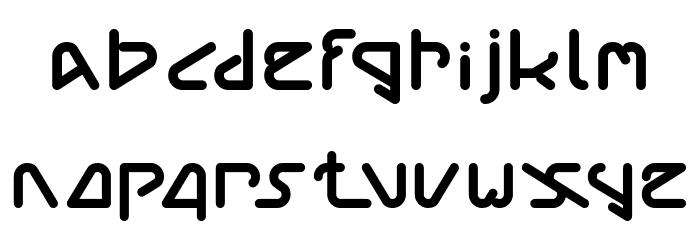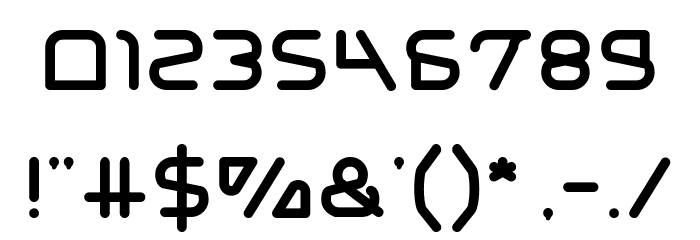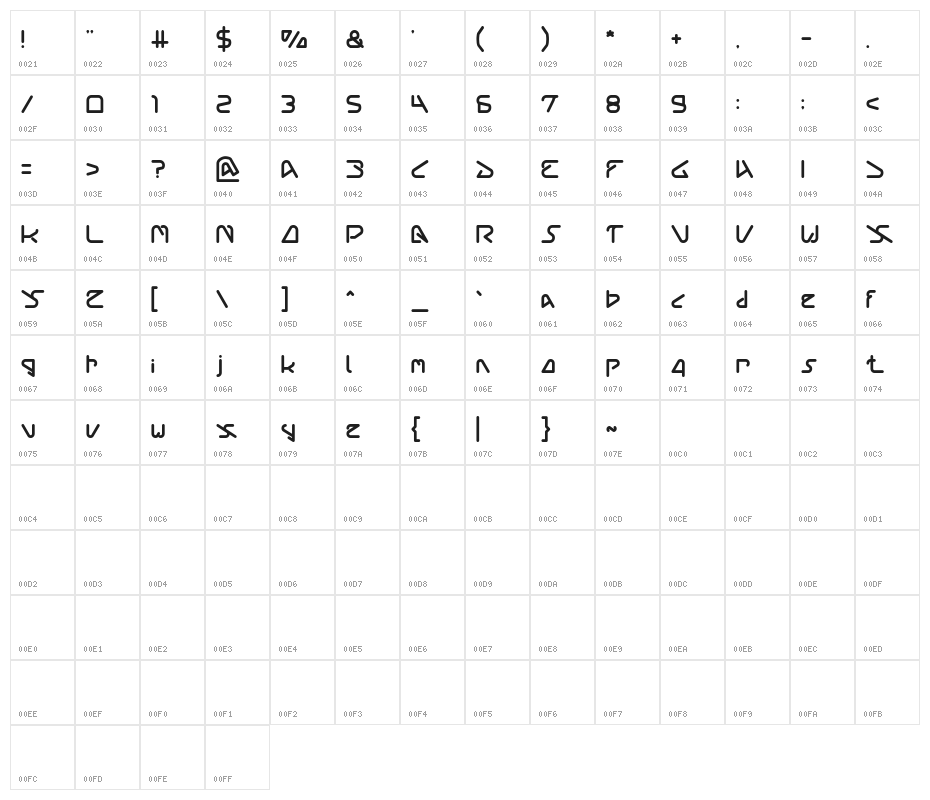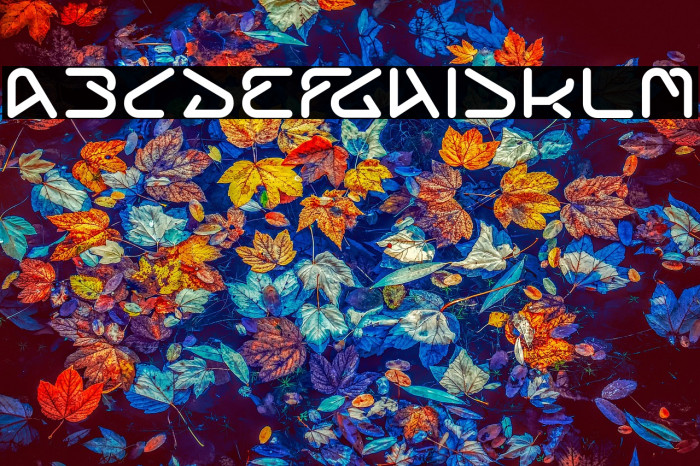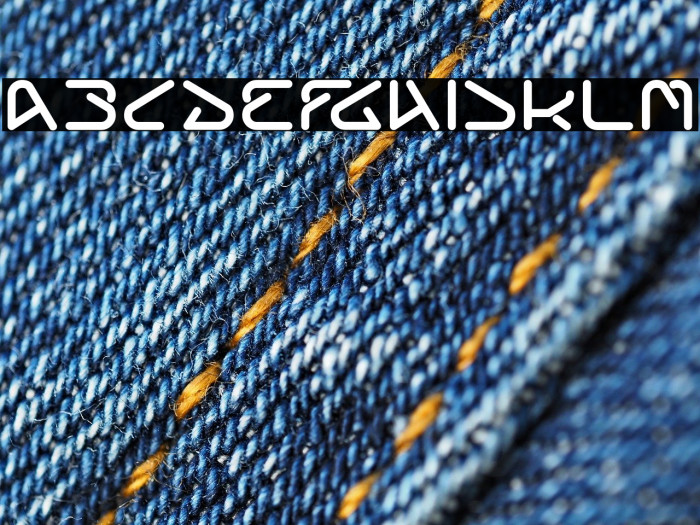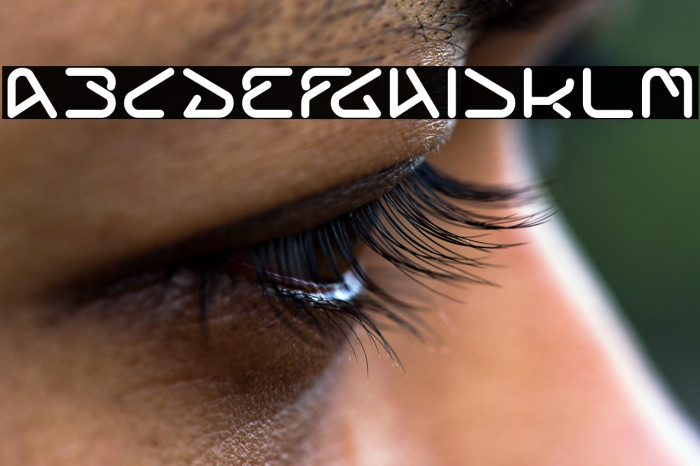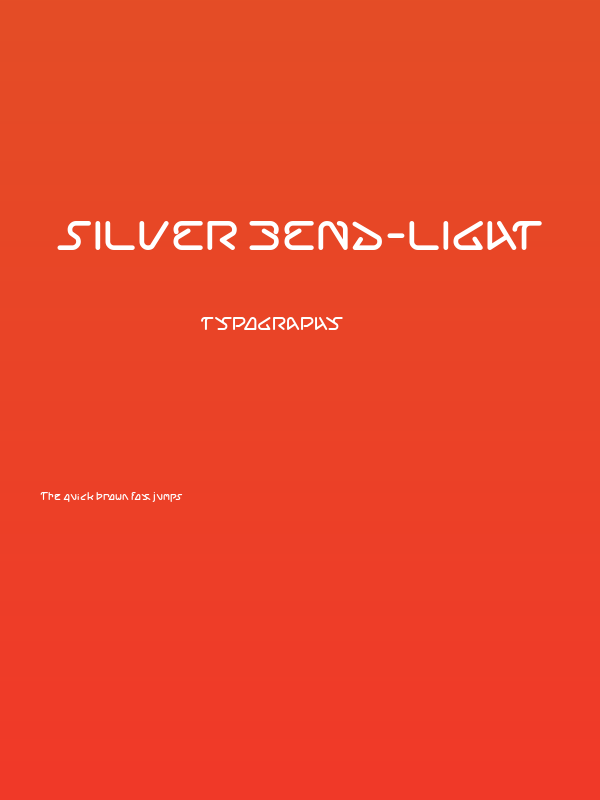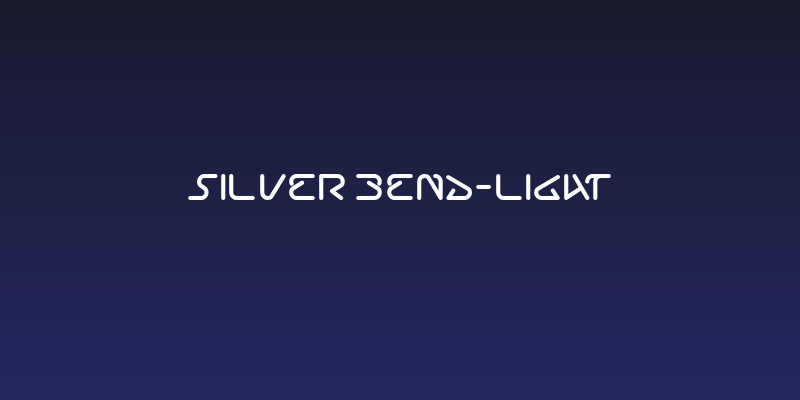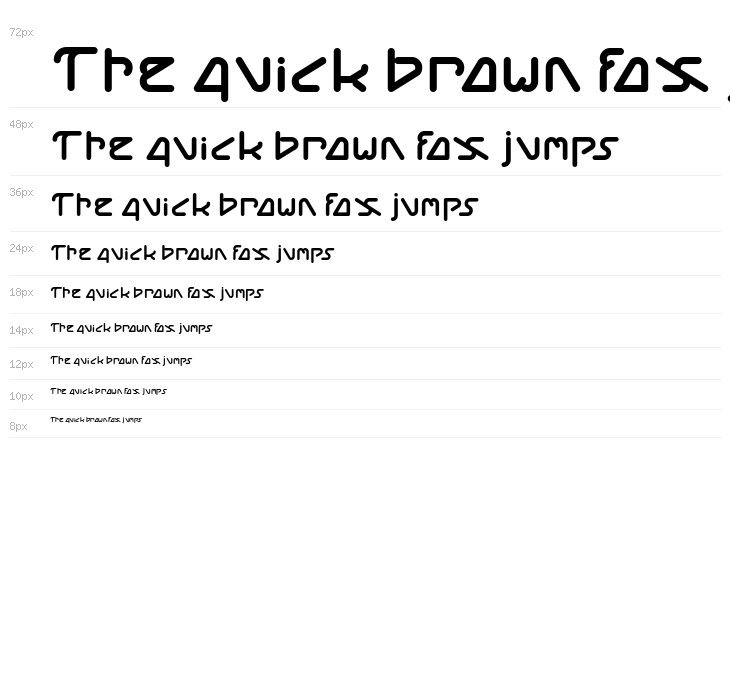
Silver Bend-Light Font
This font features a unique, futuristic design with rounded edges and a geometric structure. The characters are constructed with a consistent stroke width, giving it a clean and modern appearance. The uppercase and lowercase letters maintain a uniform style, with distinct angular cuts that add a sense of movement and dynamism. The numbers and special characters follow the same design principles, ensuring coherence across all glyphs. This font's style is both playful and sophisticated, making it versatile for various design applications.
A futuristic, geometric font with rounded edges and consistent stroke width.
- Font: Silver Bend-Light
- Proposed Projects: Ideal for sci-fi themed projects, tech branding, modern posters, and innovative product packaging.